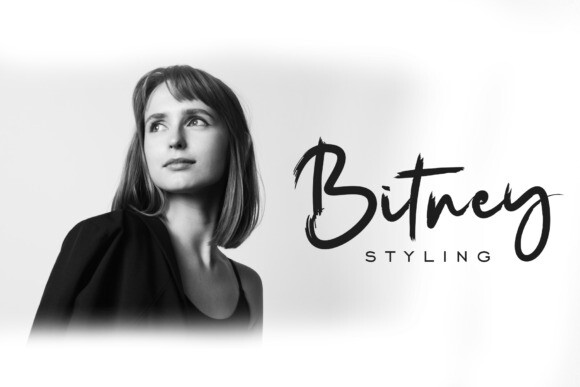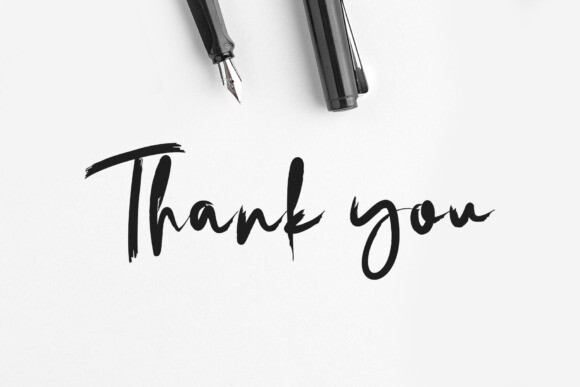
Straight Font
Straight Font is an elegant and stylish handwritten brush font. It is perfect for any type of work that calls for a bold and elegant touch!